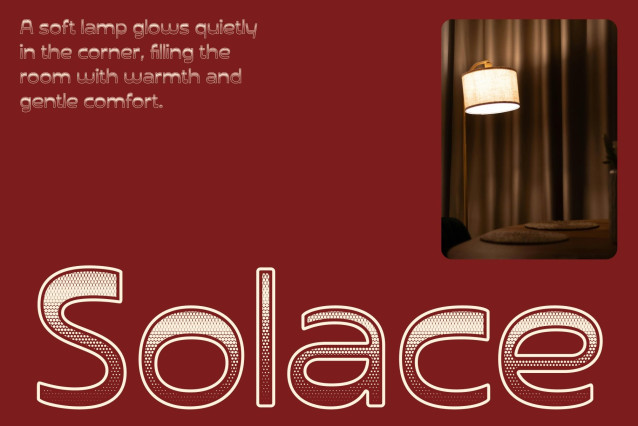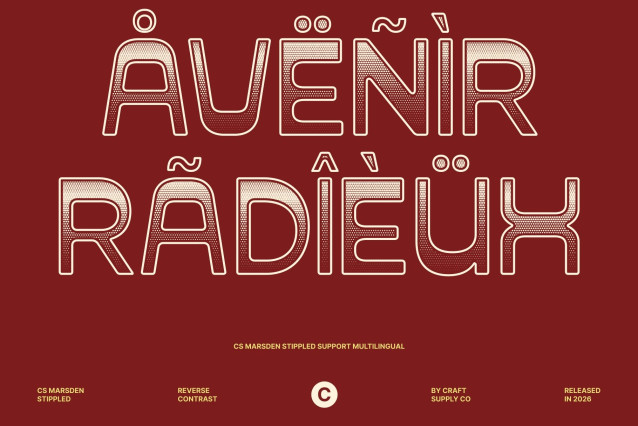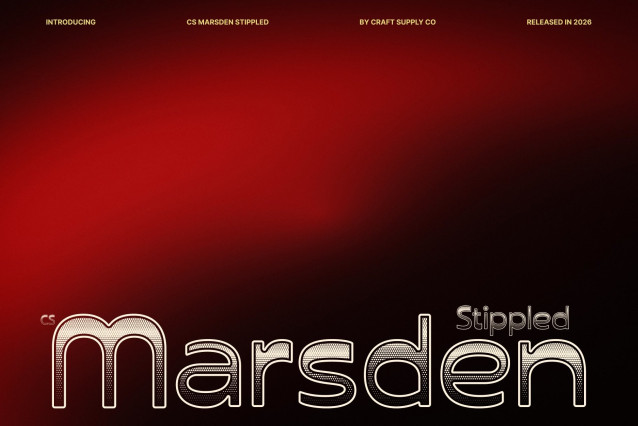
CS Marsden Stippled Font
CS Marsden Stippled – Bold Reverse Contrast with Modern Flair
Reverse Contrast Sans Serif with Distinctive Style
This font is a modern reverse contrast display font that immediately commands attention with bold shapes and confident structure. By inverting traditional stroke weight, it delivers a striking visual personality that blends contemporary aesthetics with subtle classic inspiration.
Modular Geometry for Modern Precision
Built from carefully balanced geometric forms, each character features modular construction that enhances clarity and harmony. This structured precision creates a sleek, modern appearance while maintaining strong readability for impactful display use.
Stippled Texture for Character and Depth
The dense stippled texture adds a handcrafted dotwork effect, giving the font an artistic and tactile feel. This textured finish introduces warmth and personality, softening the geometric structure with a subtle vintage and hand-drawn charm.